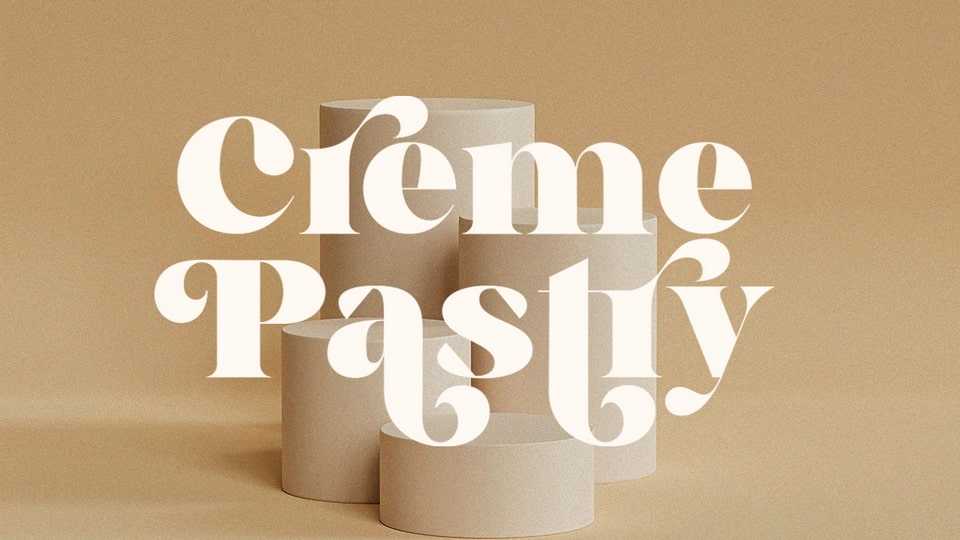
Download Creme Pastry font, a sophisticated, charming display typeface with a fashionable touch. Specially designed for luxury, elegant, feminine projects, Creme Pastry font is perfectly suitable for creating modern, chic designs.
Designer: Pentagonistudio